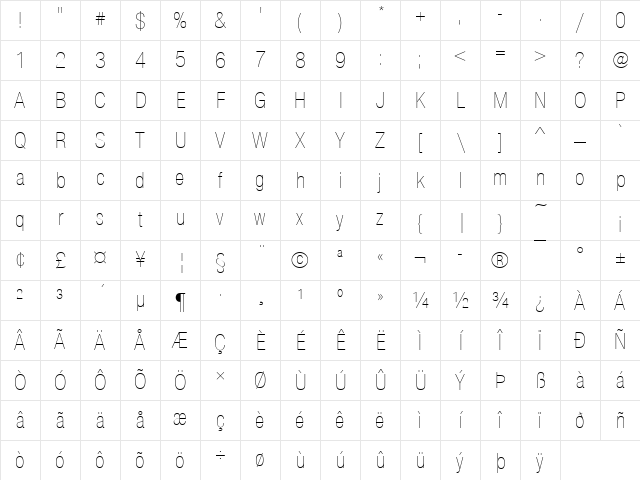
Complete NimbusSanNovTUltLigCon Regular glyph index. Displaying only characters natively supported by NimbusSanNovTUltLigCon Regular font.
NimbusSanNovTUltLigCon is a composed and adaptable typeface that performs quietly and consistently across a wide range of design contexts.